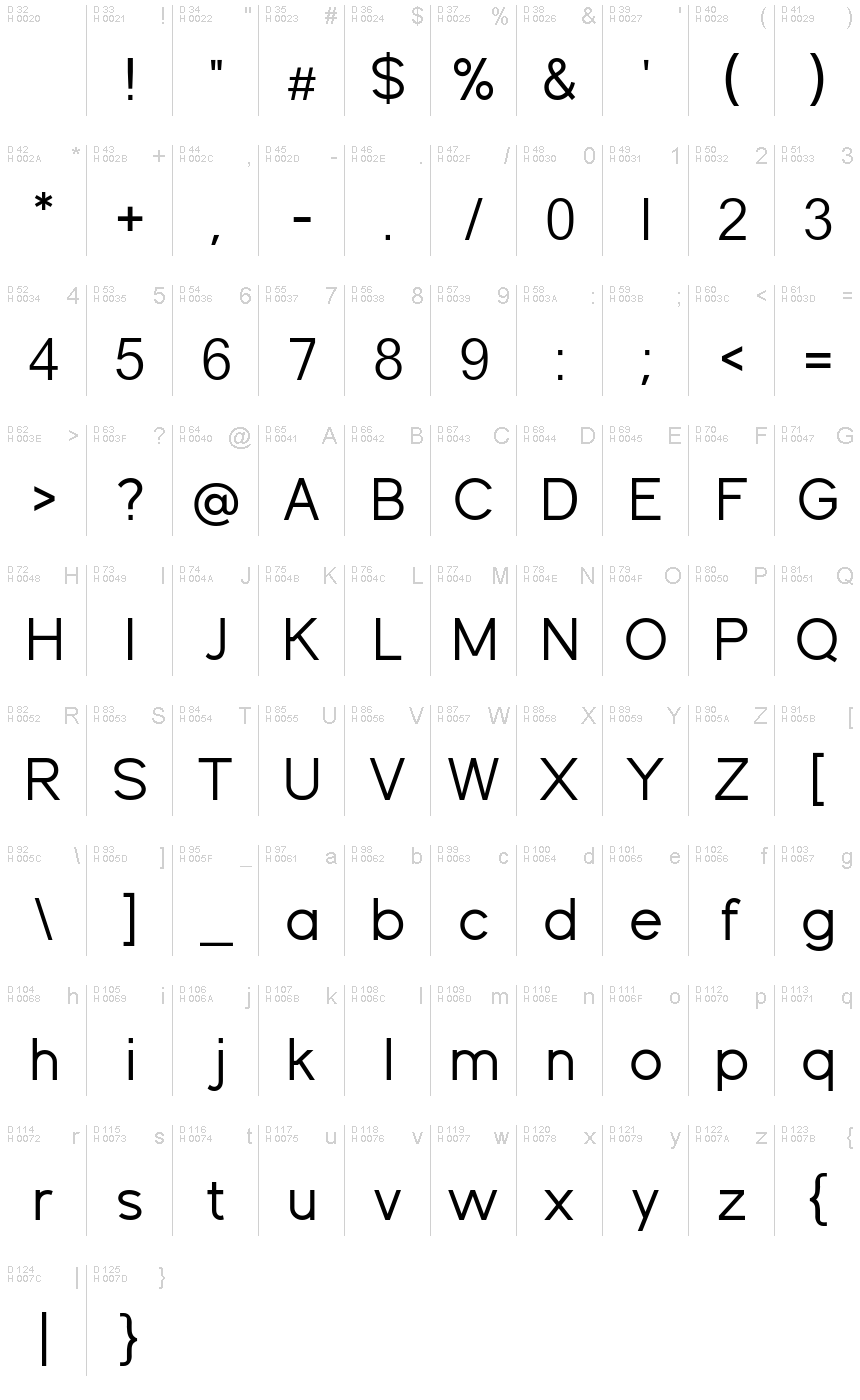
GodshineSans
Godshine Sans, a creation by UI Creative, is a captivating sans serif font that exudes a harmonious blend of elegance and modernity. Its clean lines and well-proportioned letterforms evoke a sense of sophistication, while the subtle geometric influences lend it a contemporary flair. The font's balanced stroke weights and harmonious letter spacing contribute to its refined and legible appearance, making it a versatile choice for a wide range of design applications.
Godshine Sans' versatility shines through in its ability to seamlessly adapt to diverse design contexts. Whether you're crafting high-impact headlines, crafting informative body copy, or designing impactful branding, this font's versatility allows it to excel in various mediums, from print and digital to packaging and signage. Its clean and modern aesthetic makes it an excellent choice for projects seeking to convey a sense of professionalism, elegance, and timelessness.